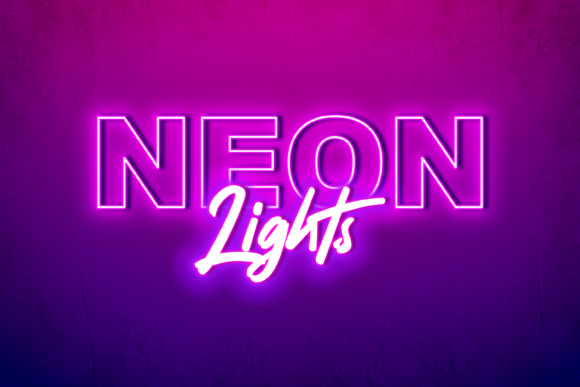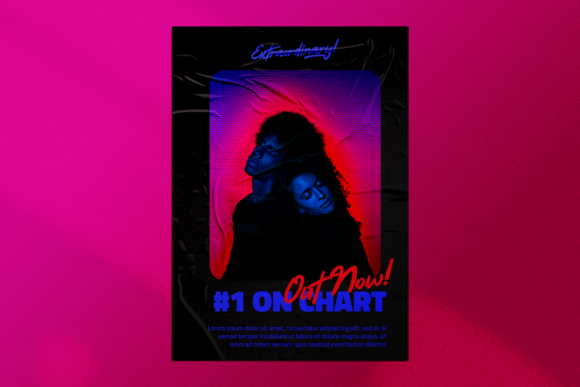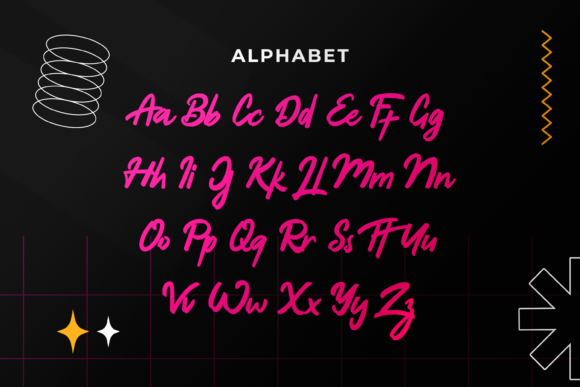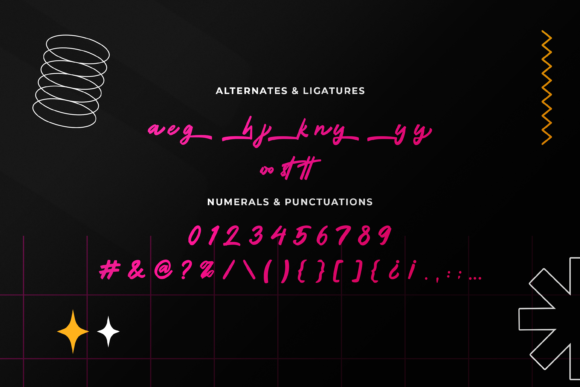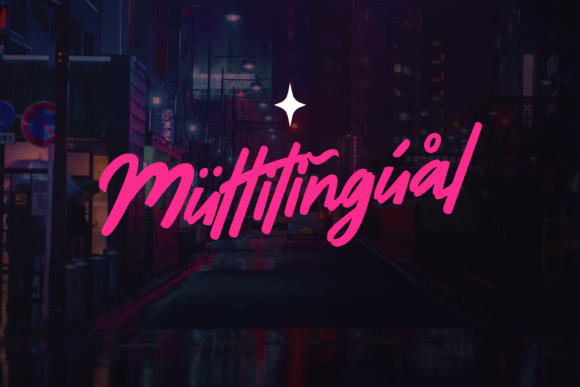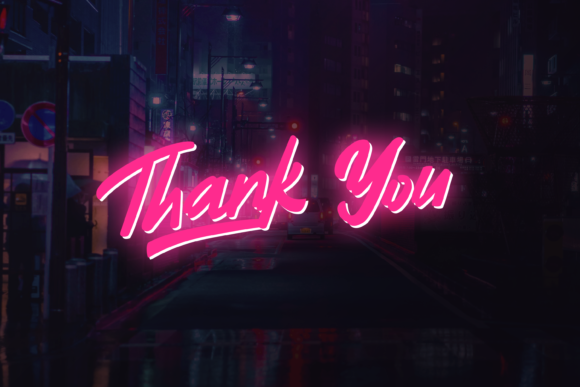
Extraordinary Font
About Extraordinary Font
Extraordinary is a fun, flowing and neat looking handwritten font. Suitable to a wide variety of designs due to its simple style, this font has the potential to become your favorite go-to font, no matter the occasion!